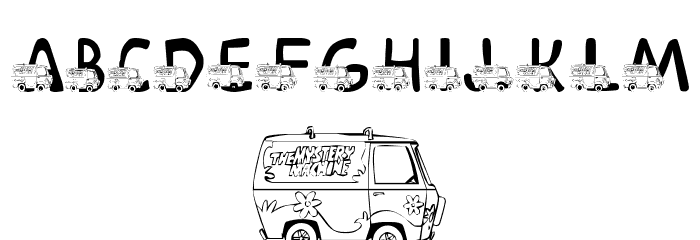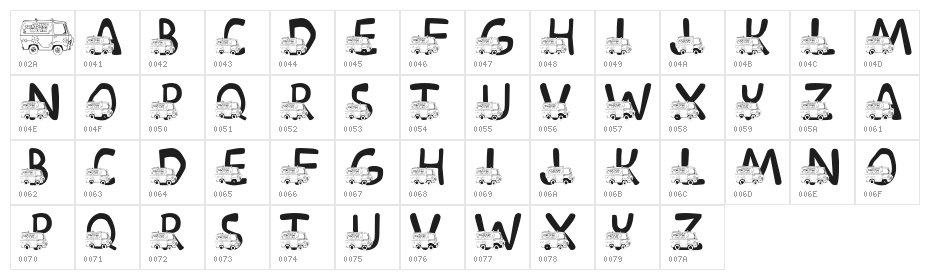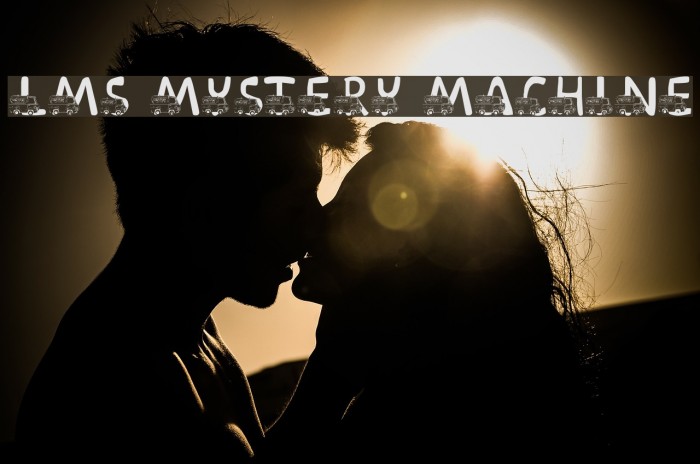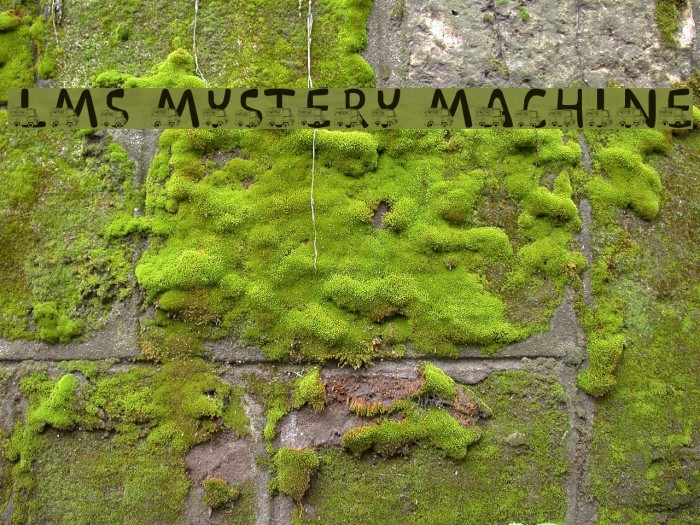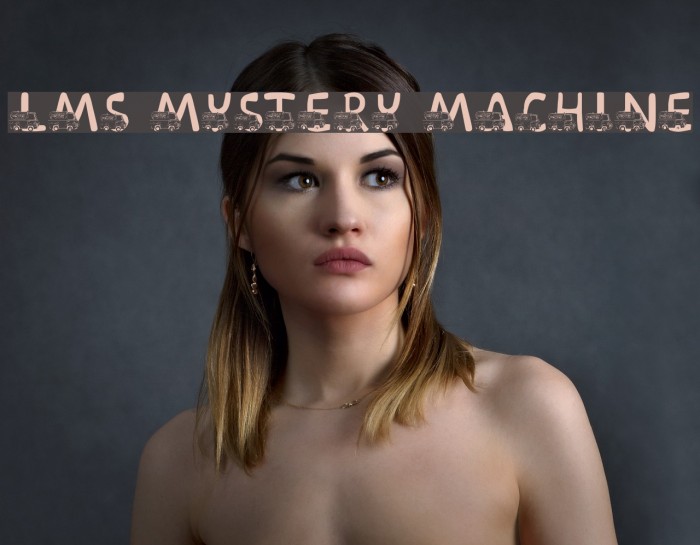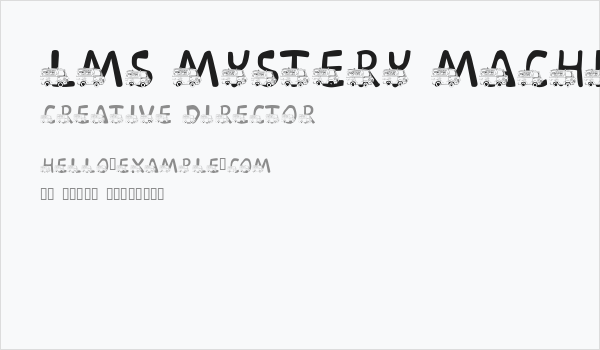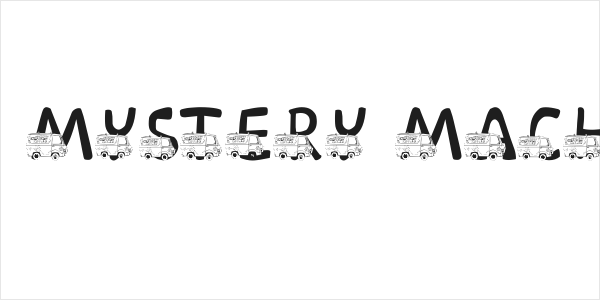
LMS Mystery Machine Font
LMS Mystery Machine Description
This playful and whimsical font features a unique design where each letter is integrated with an illustration of a classic van, reminiscent of a popular mystery-solving vehicle. The letters are bold and rounded, giving them a friendly and approachable appearance. The integration of the van graphic adds a decorative and thematic element, making it stand out as a novelty font. The overall style is fun and nostalgic, appealing to fans of retro themes and cartoon aesthetics.
Overall StyleDecorative, Nostalgic
Proposed ProjectsIdeal for children's book covers, themed party invitations, retro-style posters, and any project requiring a fun, nostalgic touch.